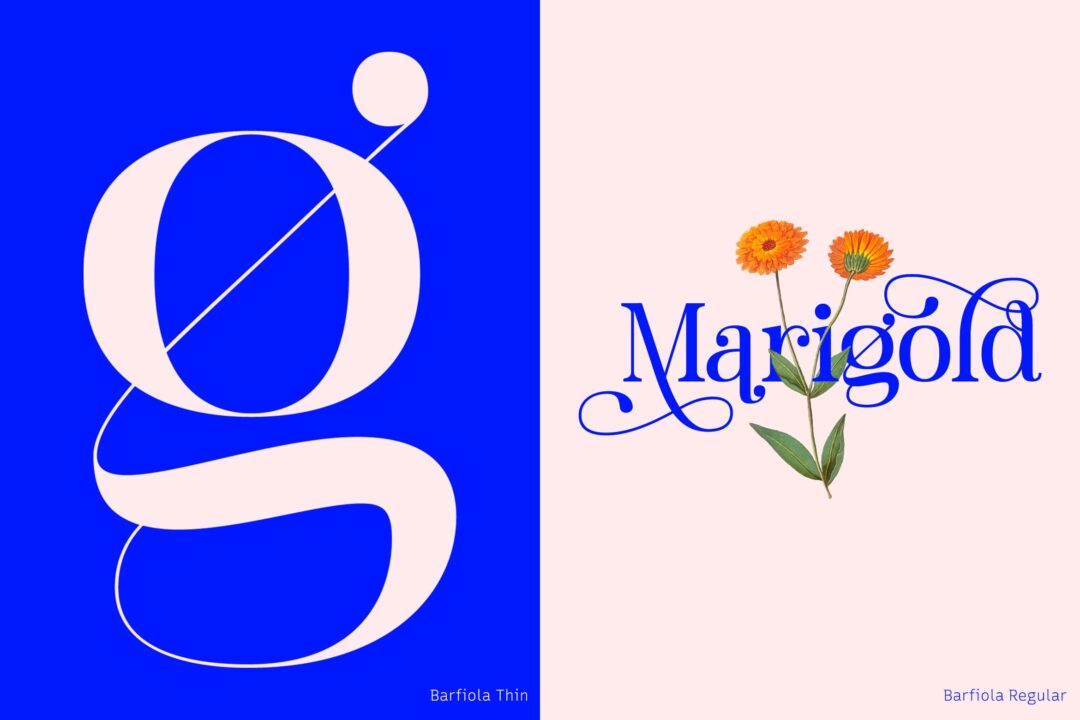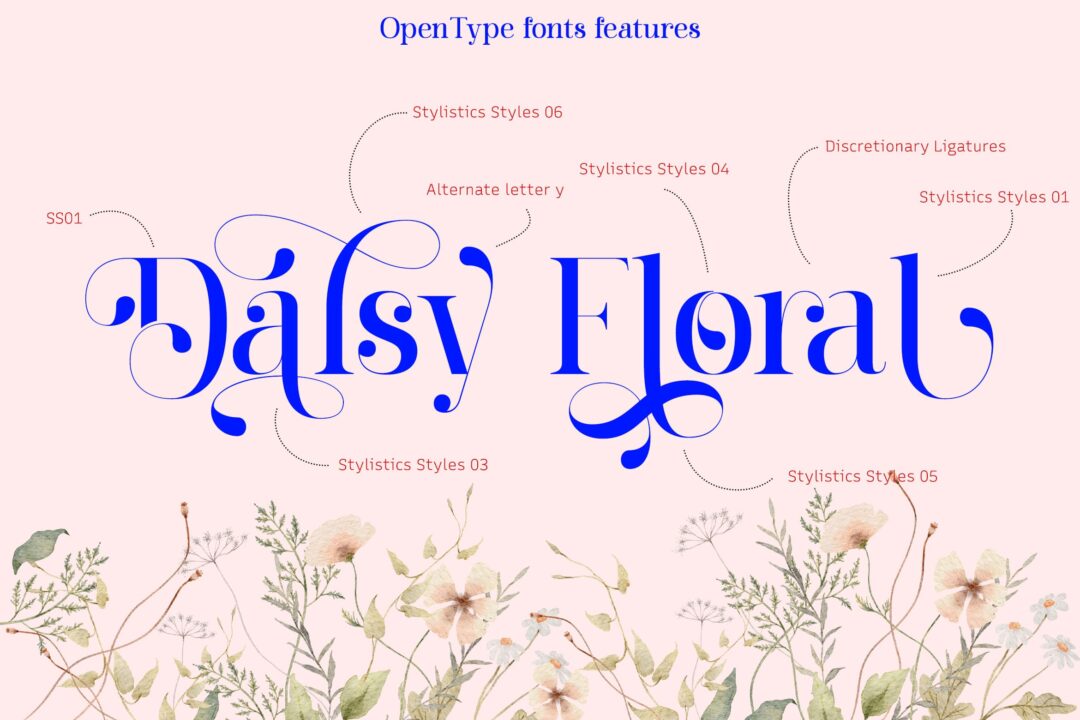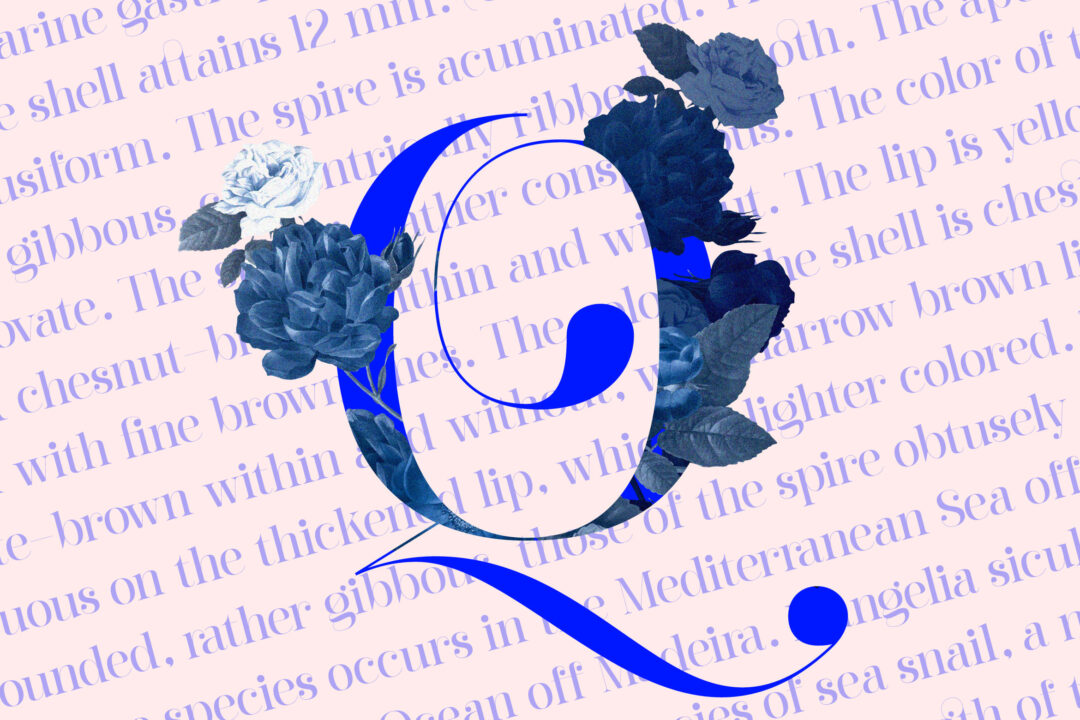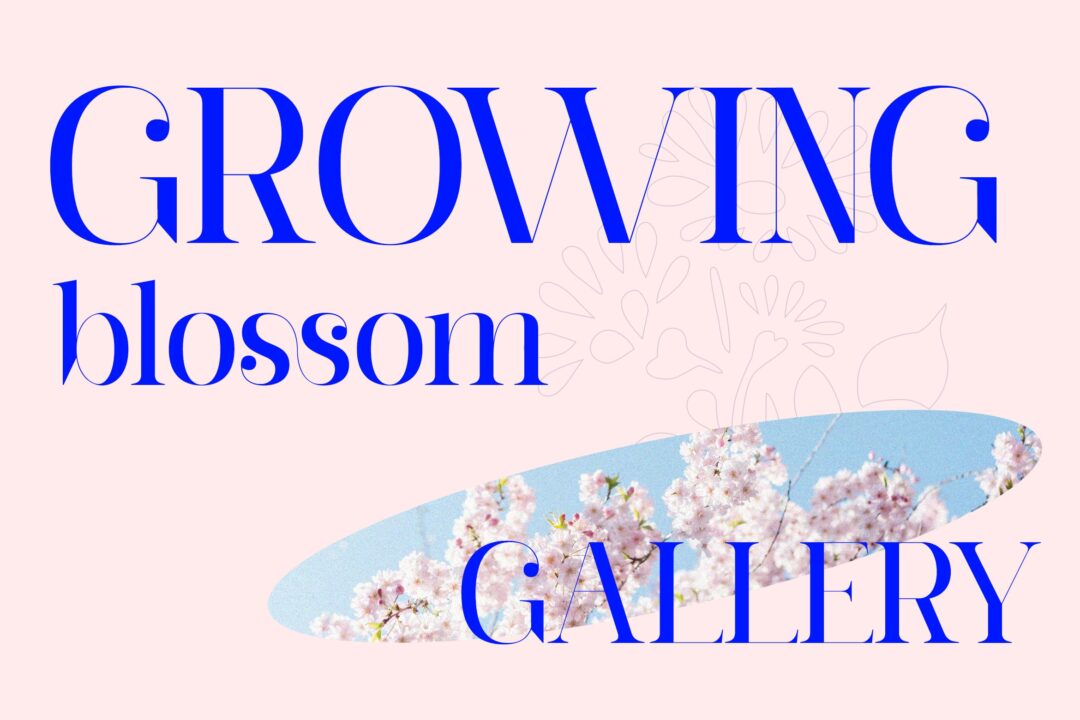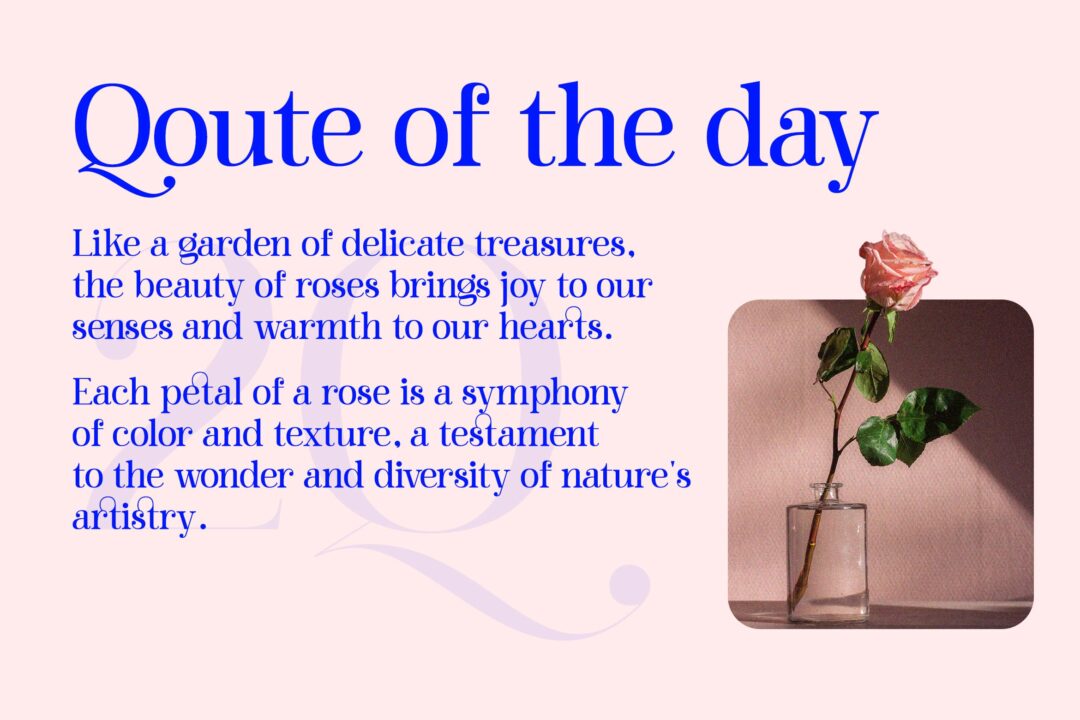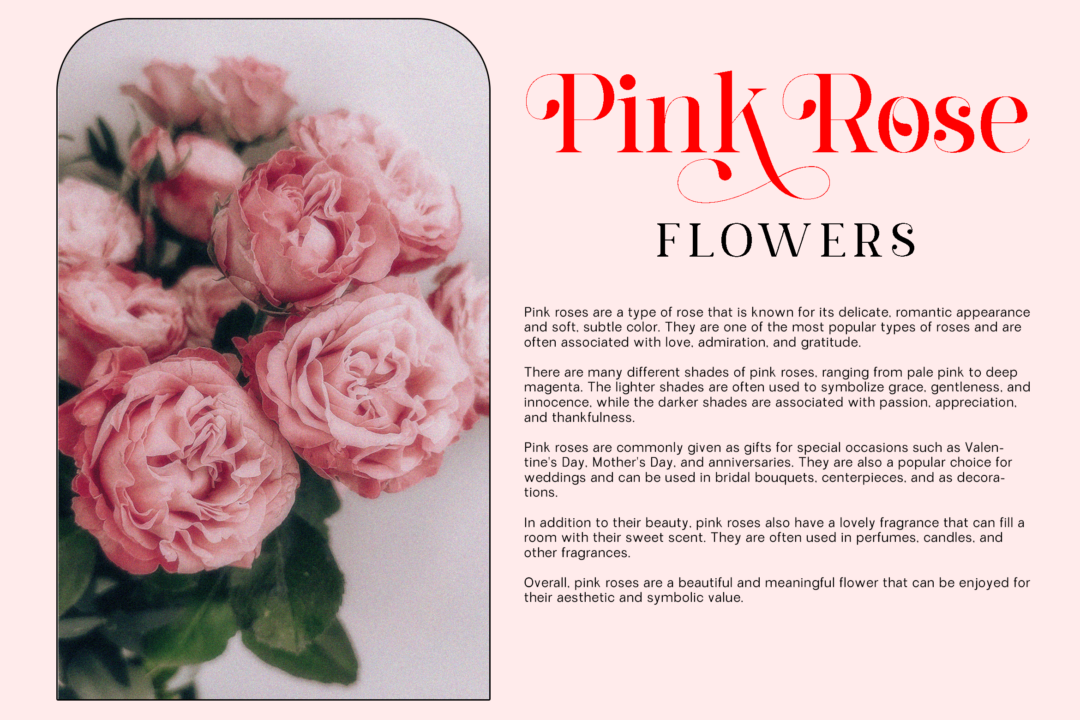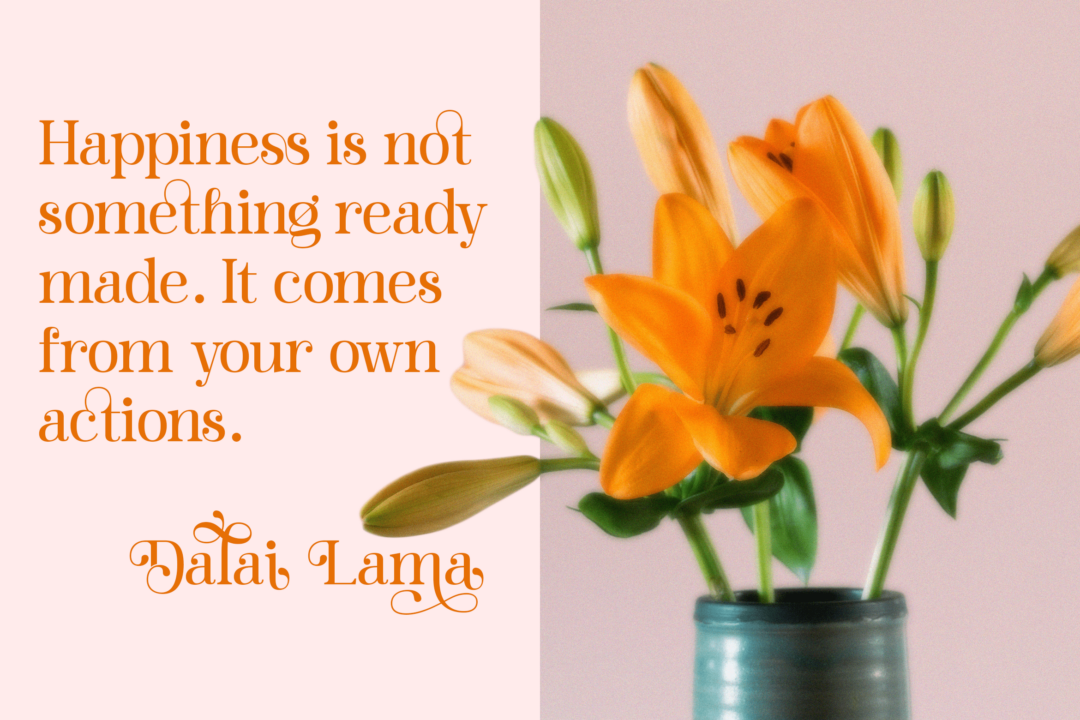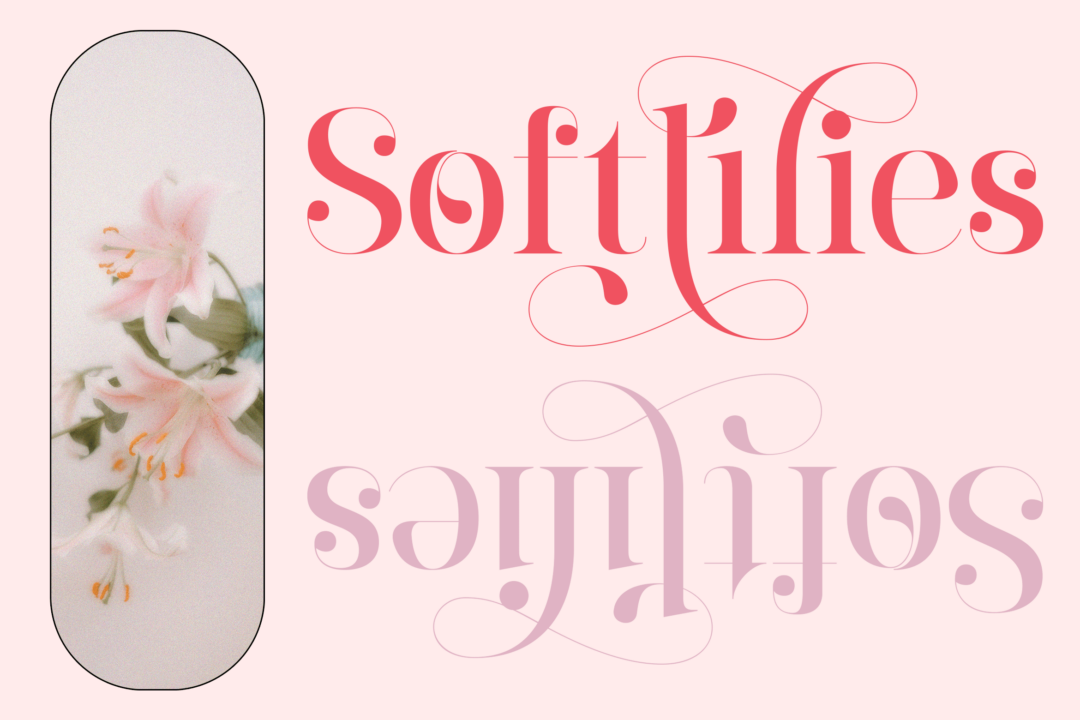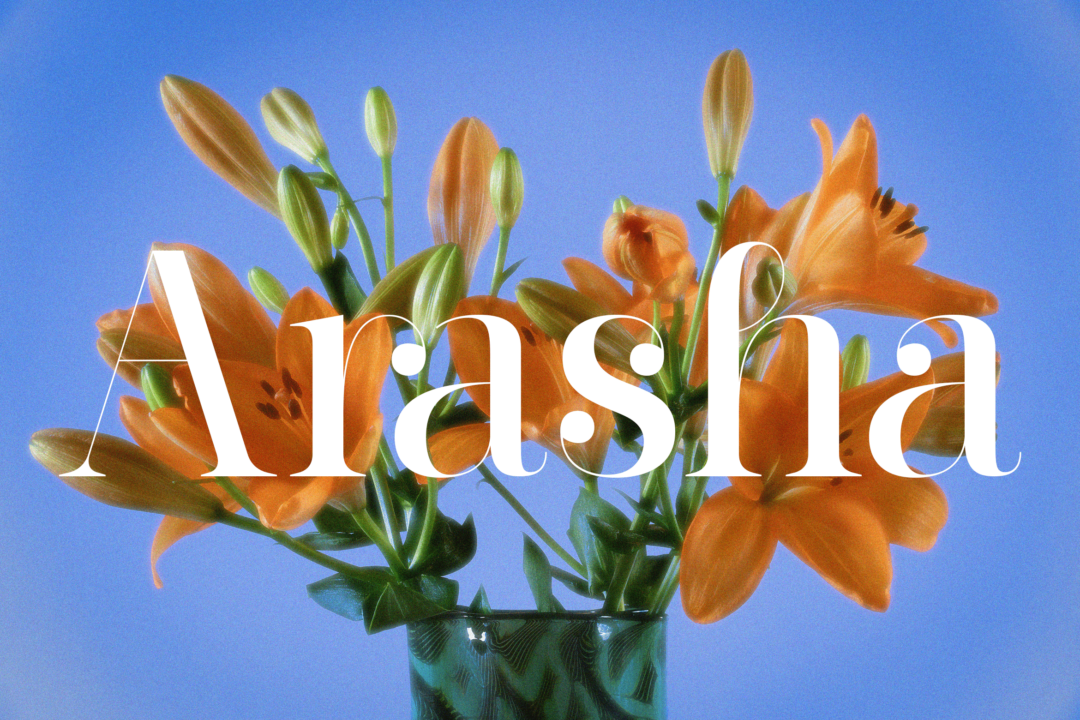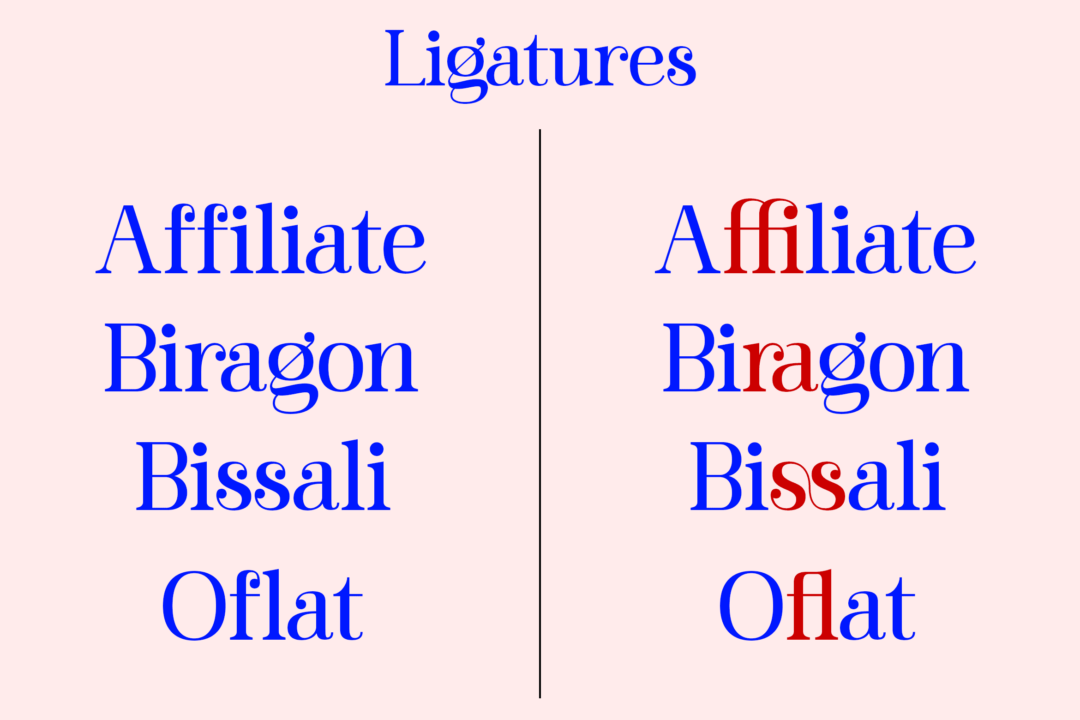
Barfiola is a modern serif font that blends vintage aesthetics with minimalism. It comes with unique uppercase letters, alternate characters, and ligatures that add elegance to any design. It’s perfect for creating stylish logos, packaging, and invitations.